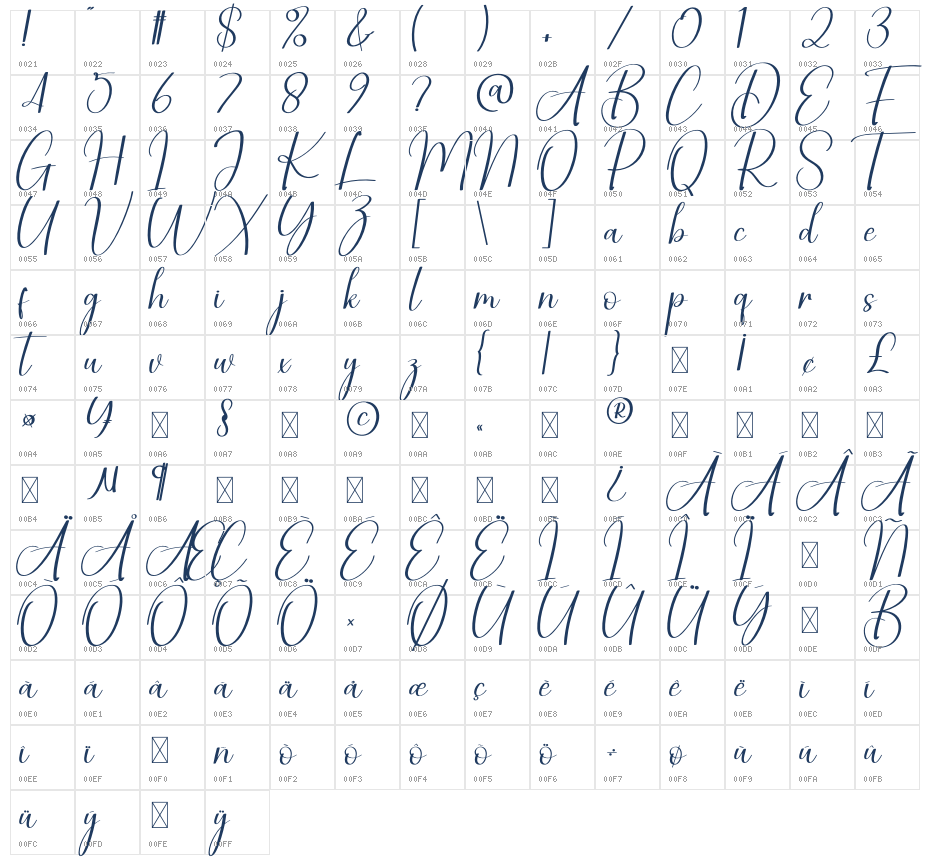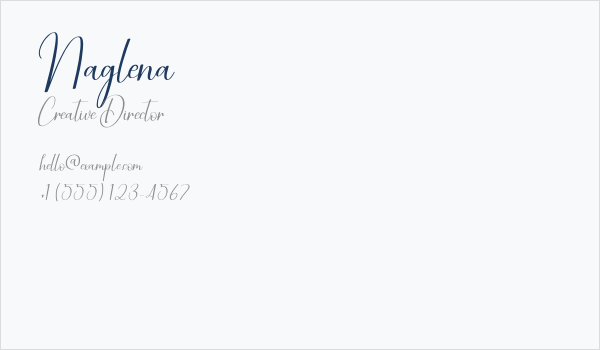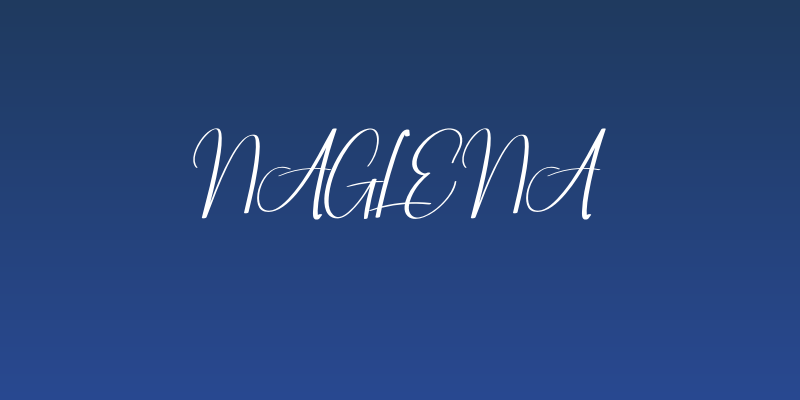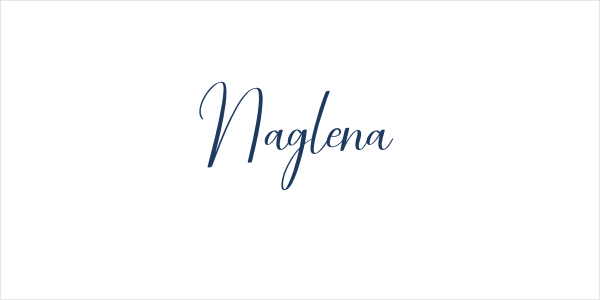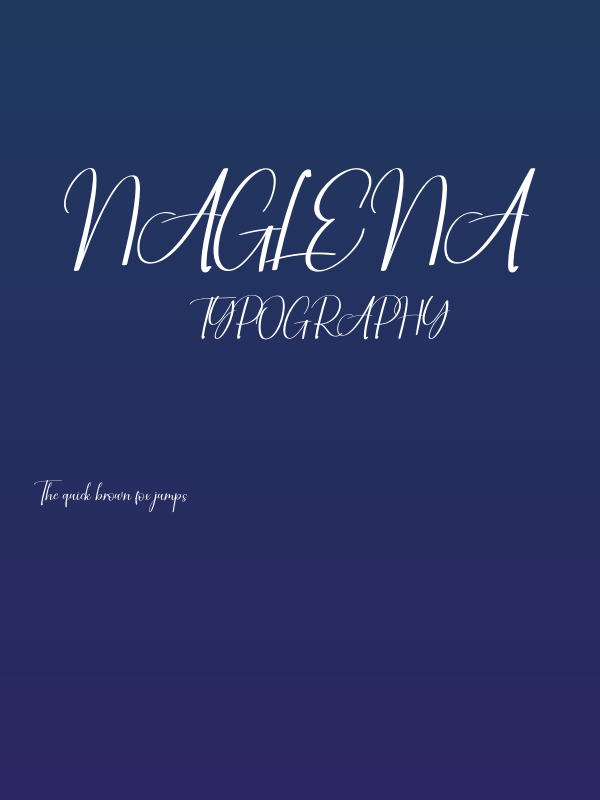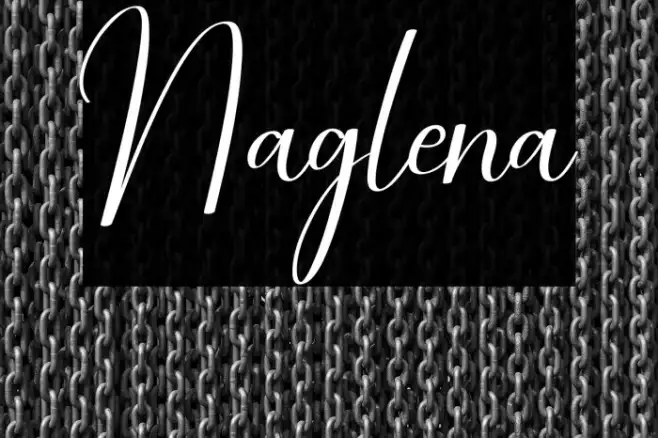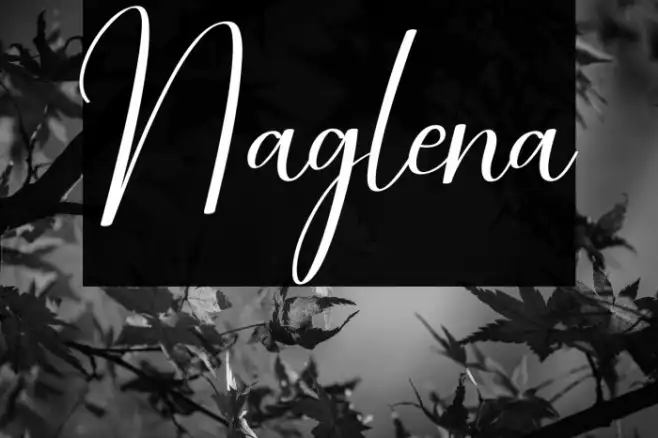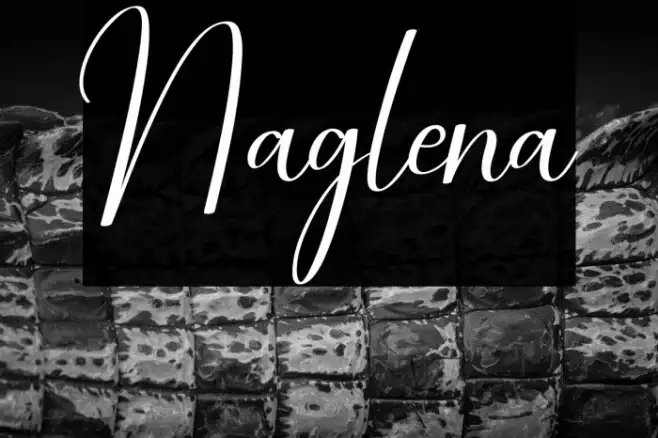
Naglena Font
Naglena Description
Elegant, cursive script font with flowing, decorative strokes and high contrast between thick and thin lines.
| Overall Style | Elegant, Decorative, Calligraphic |
| Use Case | Headlines, Invitations, Logos, Decorative Text |